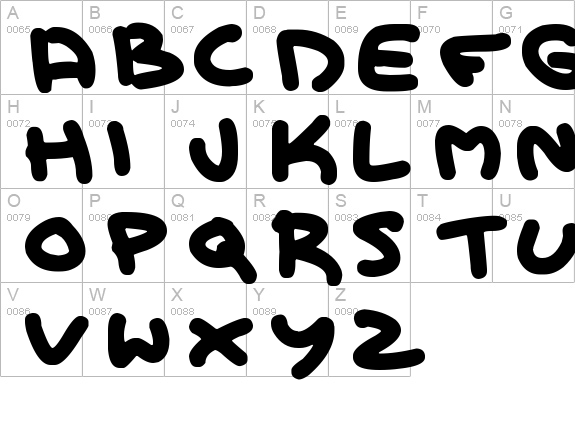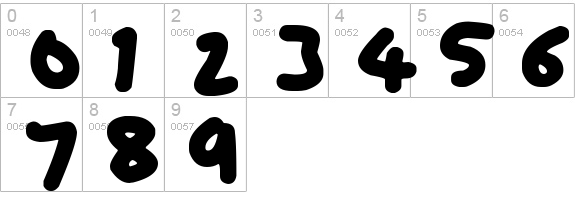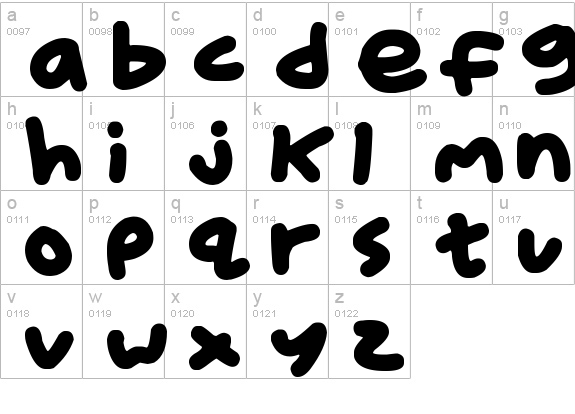
Kid Marker Font Details
Kid Marker is a free for personal use font in the Script > Handwritten category, designed by Darrell Flood. It has been downloaded 21 times and is available for Windows, Mac and Linux.
Kid Marker font is a playful and whimsical typeface that captures the essence of childhood and creativity. With its handwritten style and charming imperfections, this font is perfect for adding a fun and youthful touch to your designs. Whether you're working on a school project, children's book, or any other creative endeavor, Kid Marker font will bring a sense of joy and innocence to your work.